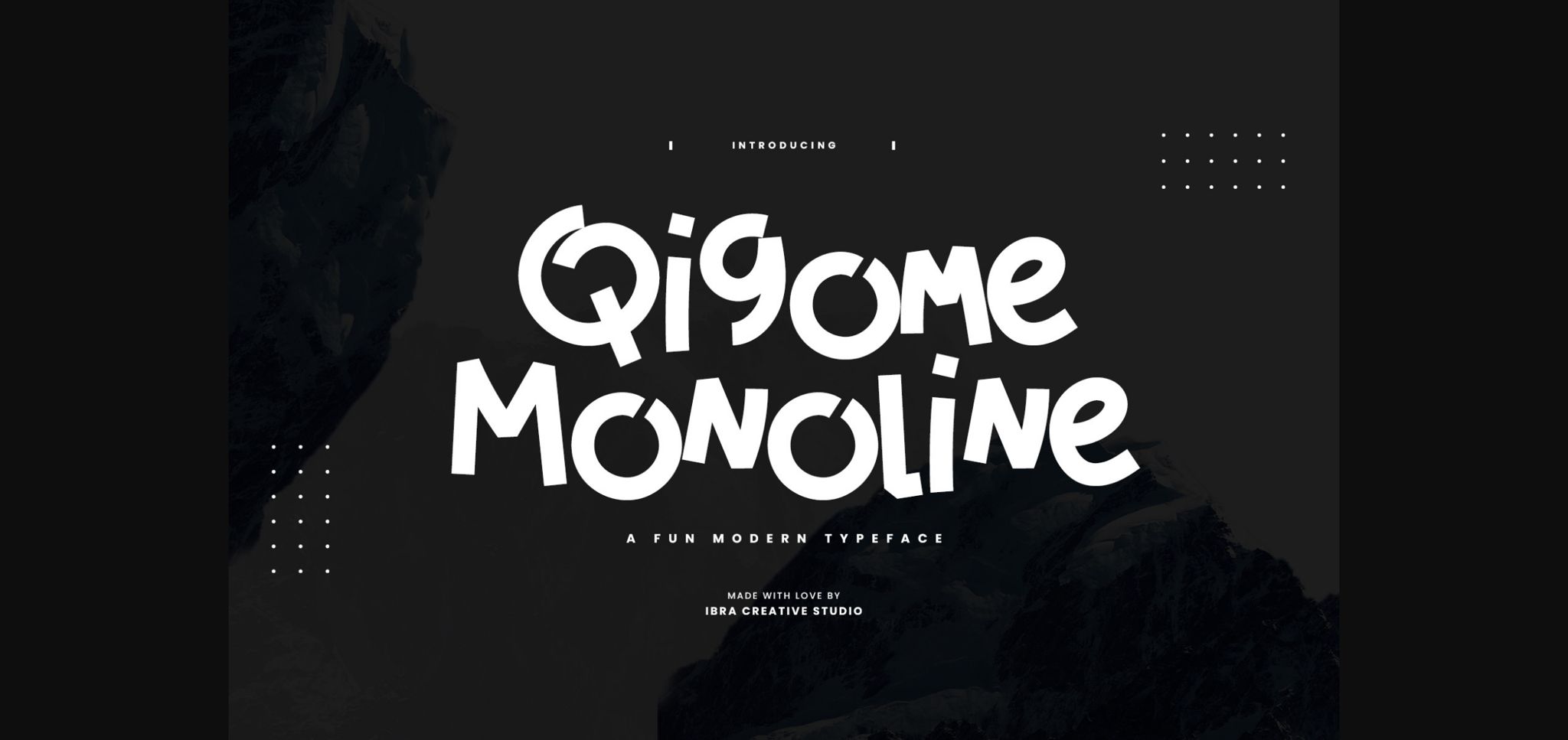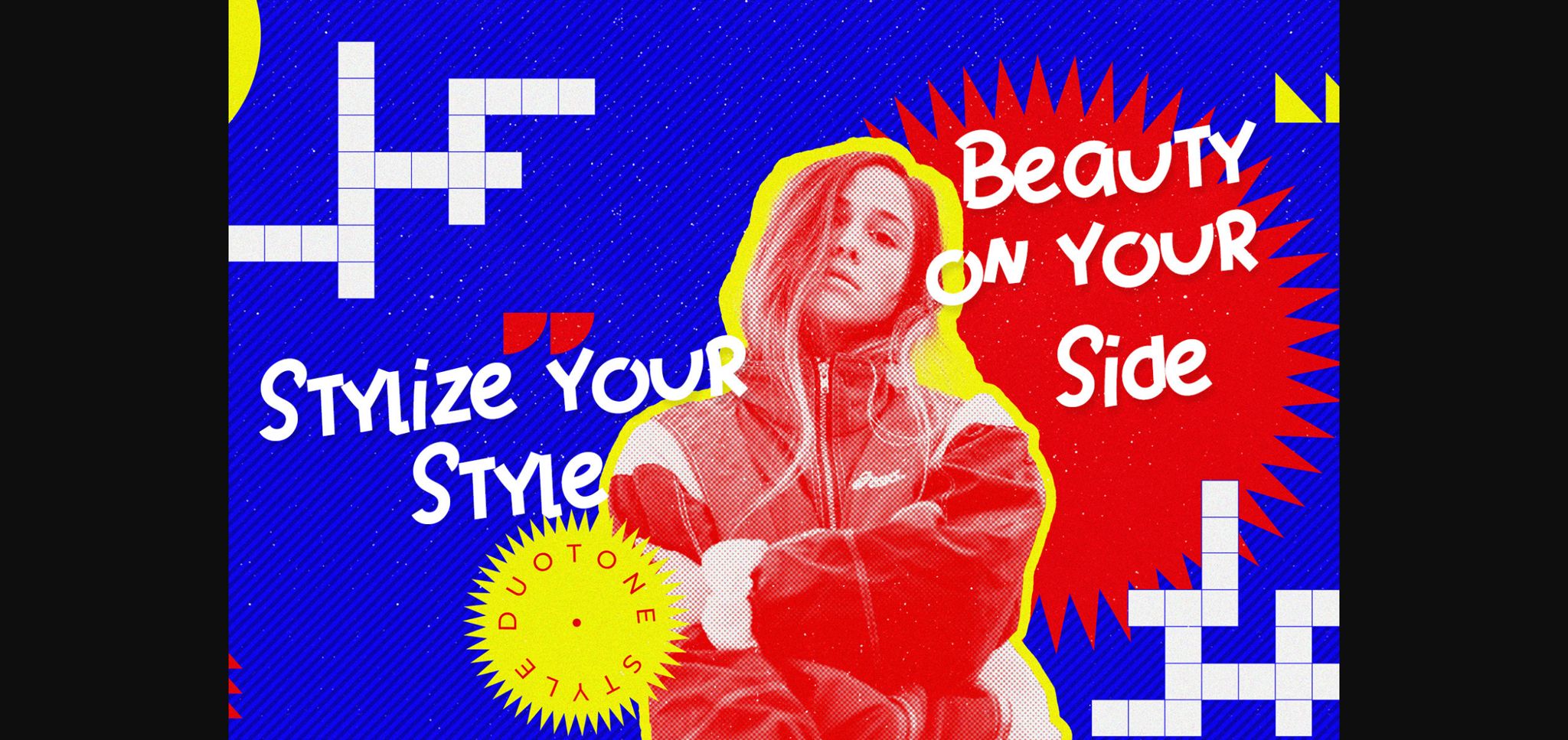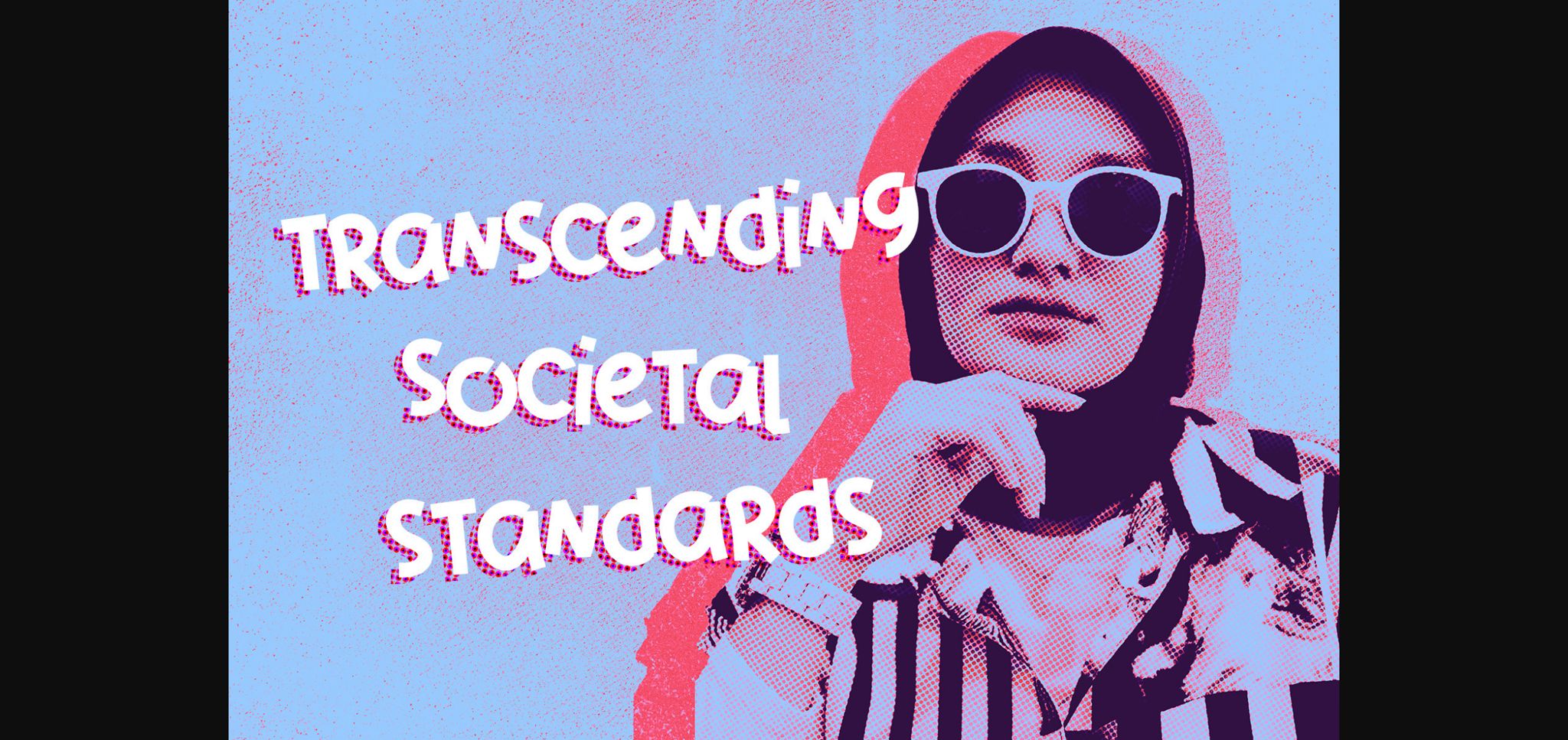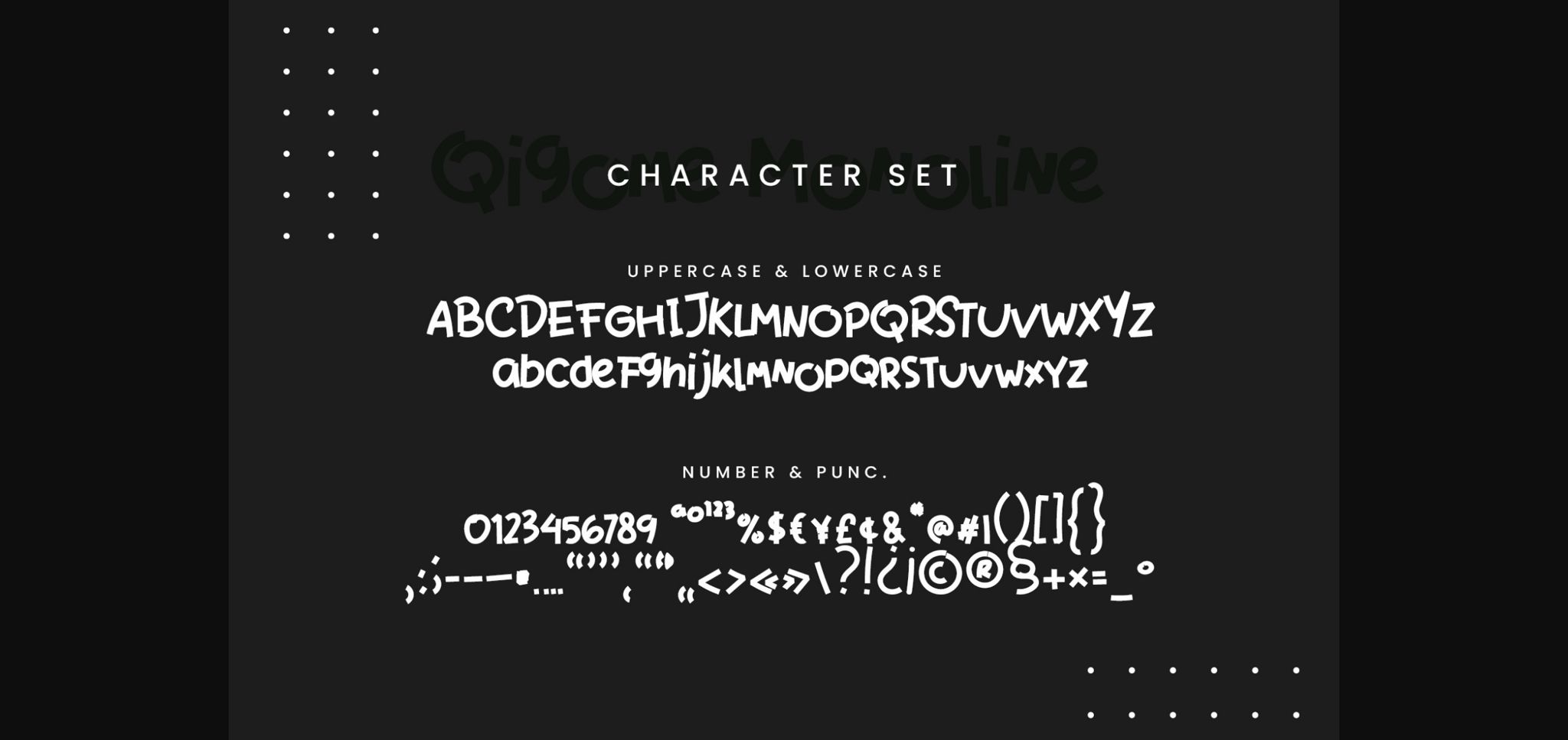
About Qigome Monoline Font
Qigome Monoline is a fun and modern typeface that combines playfulness with a sleek aesthetic. With its smooth and consistent line weight, Qigome Monoline exudes a sense of contemporary style. Each letter has a unique and quirky personality, adding a touch of whimsy to any design. Whether used for logos, posters, or social media graphics, Qigome Monoline injects a dose of energy and liveliness. Its versatility allows it to seamlessly adapt to various creative projects, bringing a fresh and modern vibe. Qigome Monoline is the perfect choice for those seeking a typeface that effortlessly blends fun and sophistication.